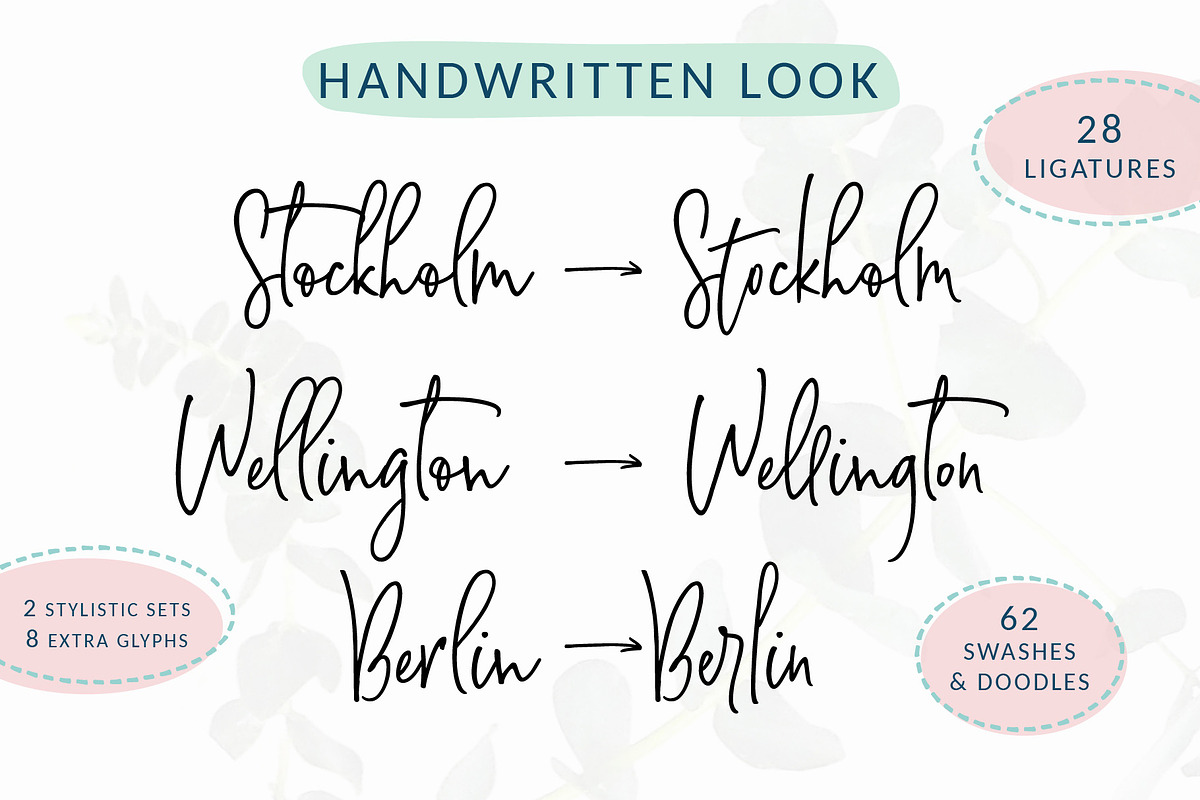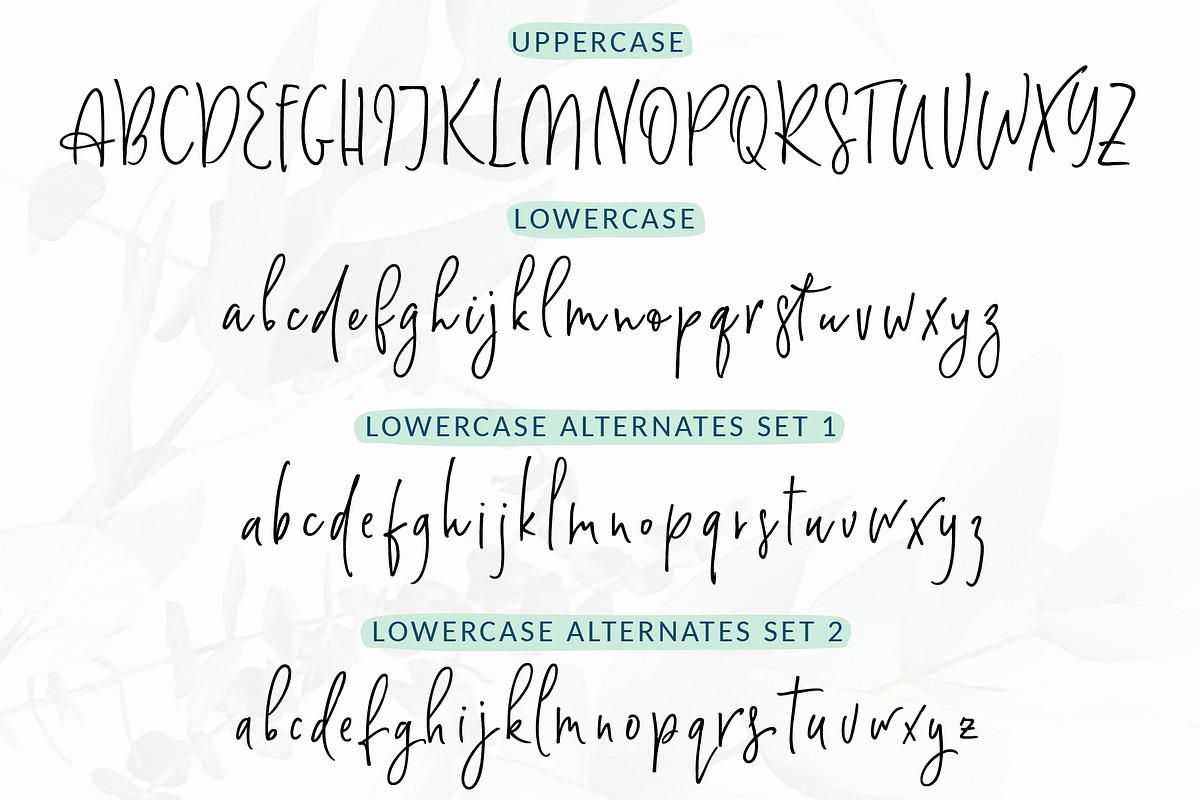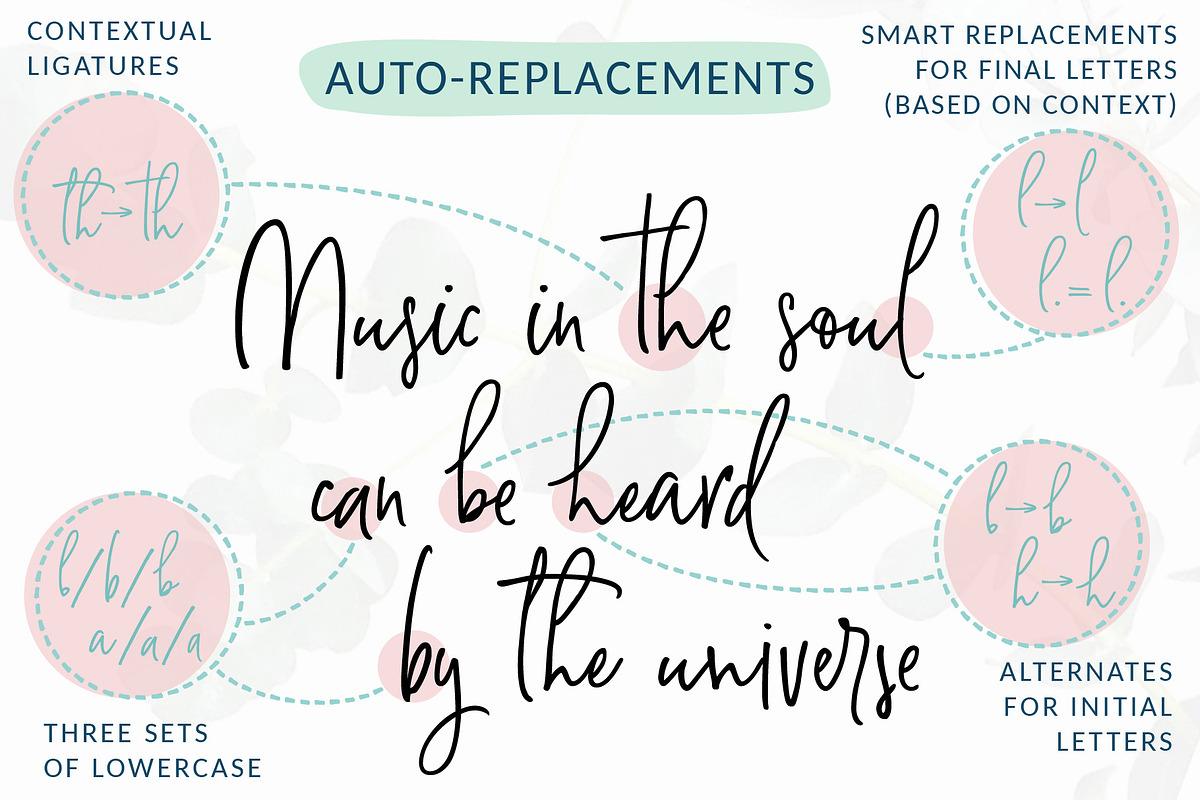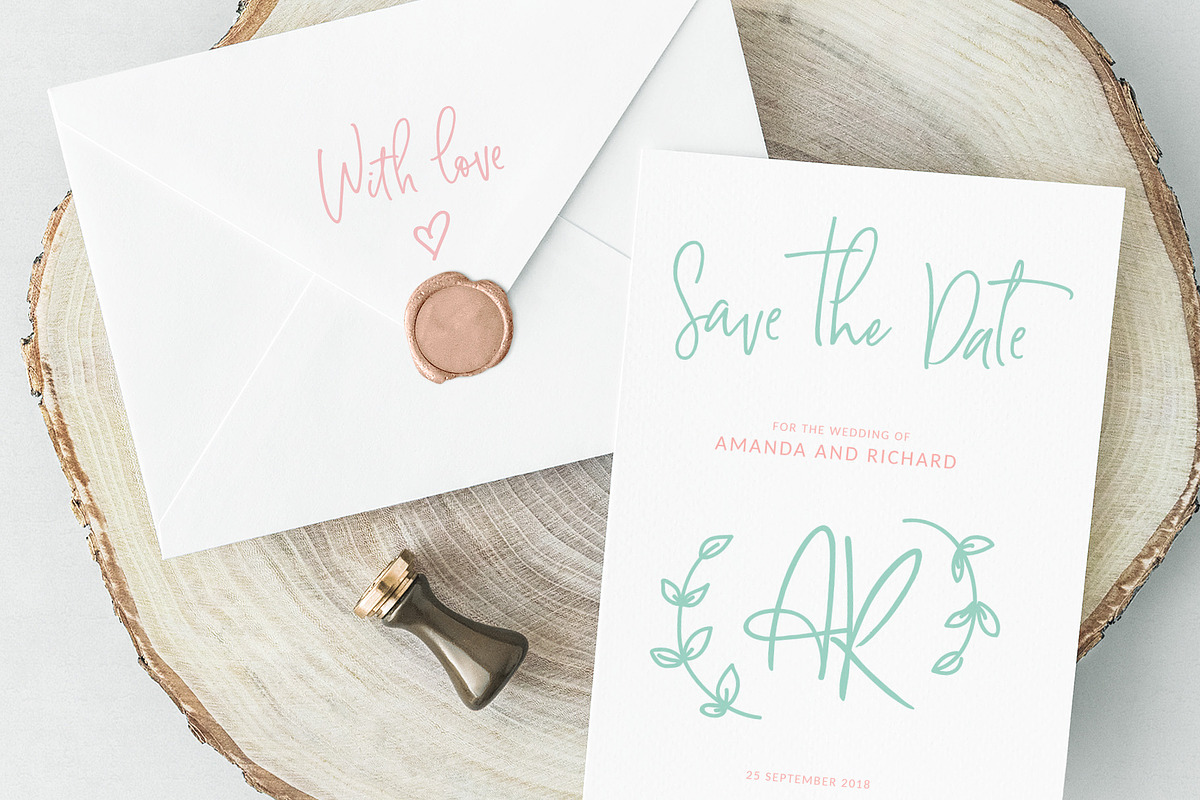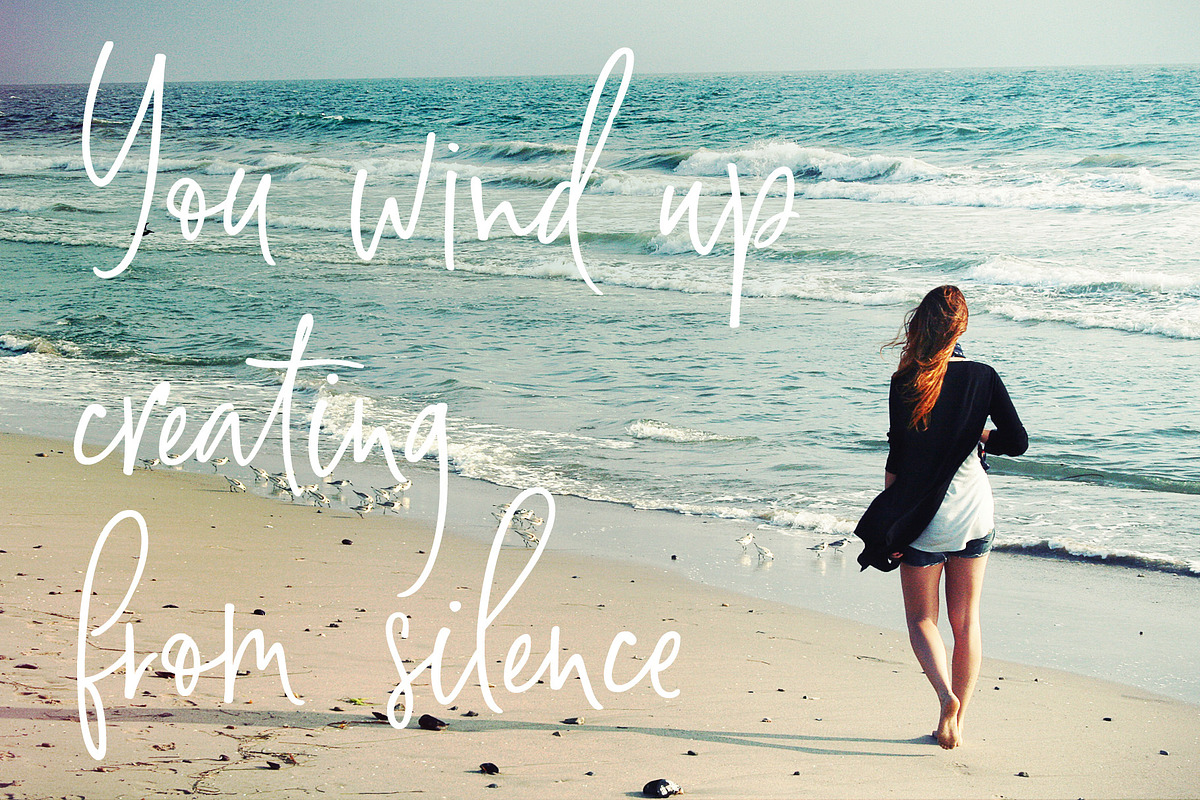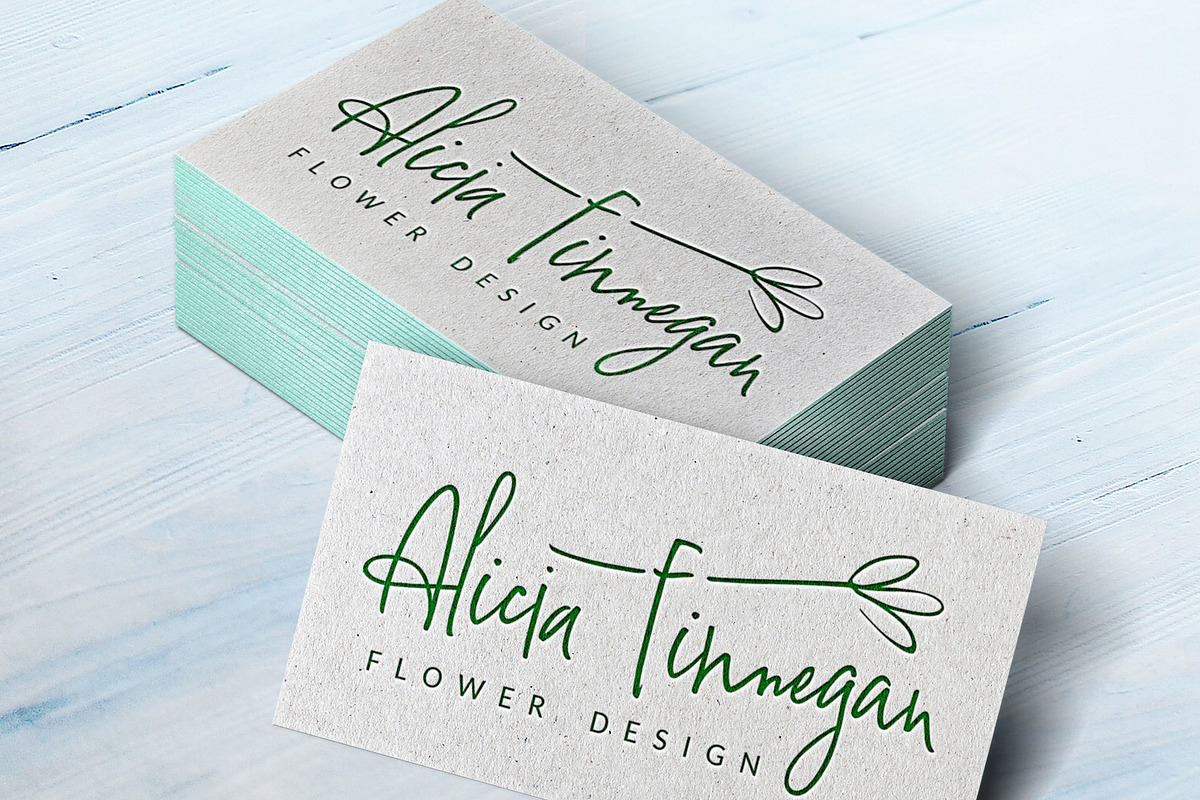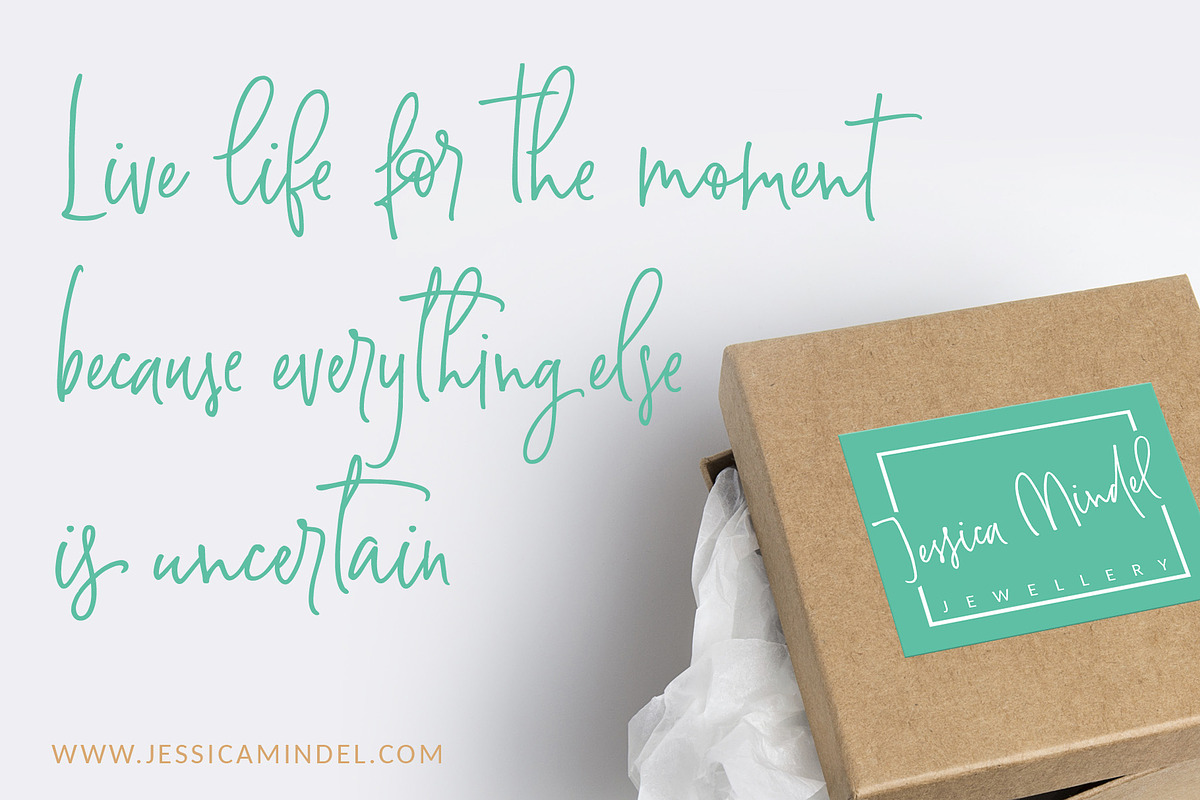
Symply handwritten font
Hi there! Let me introduce Symply – a handwritten signature-style font. Symply is perfect for logos, branding, quotes, blog headlines, magazine and book design, product packaging, web design – or for any text on postcards and your favorite photos.
a standard set of characters with wide multilingual support: Western-, Central- and Eastern-European, Baltic, Turkish, Latin-type Africans, and Asian (94 languages in total)
2 additional sets of alternative characters for lowercase letters
8 alternative characters for some initial letters
28 ligatures for double letters and frequent combinations
a bonus font with 62 swashes and doodles
Symply has two types of embedded auto-replacements: lowercase letters without connecting strokes (for a case of the last character of the word), and ligatures (for a case of two letters that do not pair well together). These features work well in many apps (even simple ones like Notepad/TextEdit), and if you need to customize their application – you could use programs that support OpenType features (for example, Adobe apps or CorelDraw). All these additional glyphs are PUA-encoded, so if your software does not support OpenType — you could access them through Character Map (Windows) or Font Book (Mac). A PDF document with font installation tips and a guide for access to PUA-encoded glyphs is included in the product file folder
Swashes and doodles come in a bonus font, Symply Swashes. To type them, please press keys with letters A – X, a – x, and numbers 0 – 9